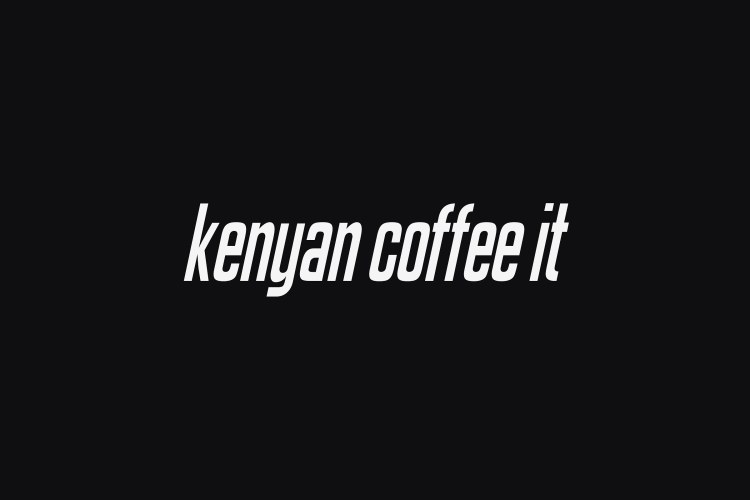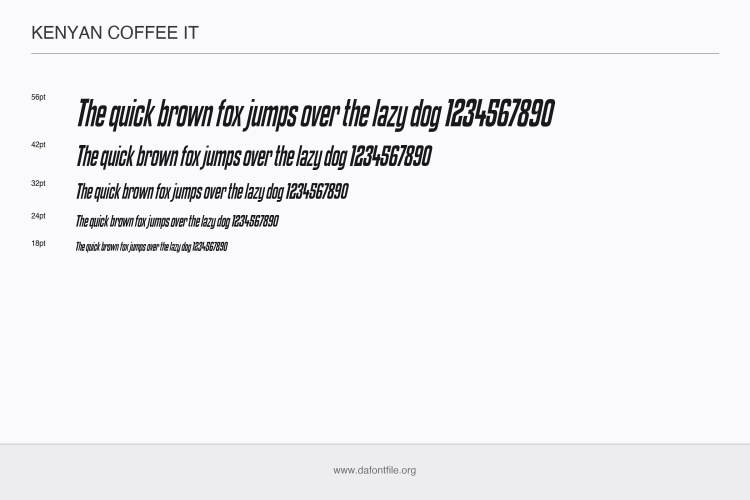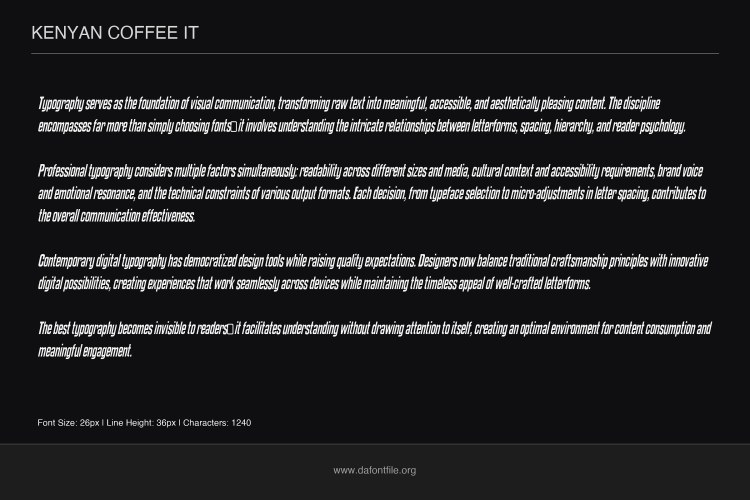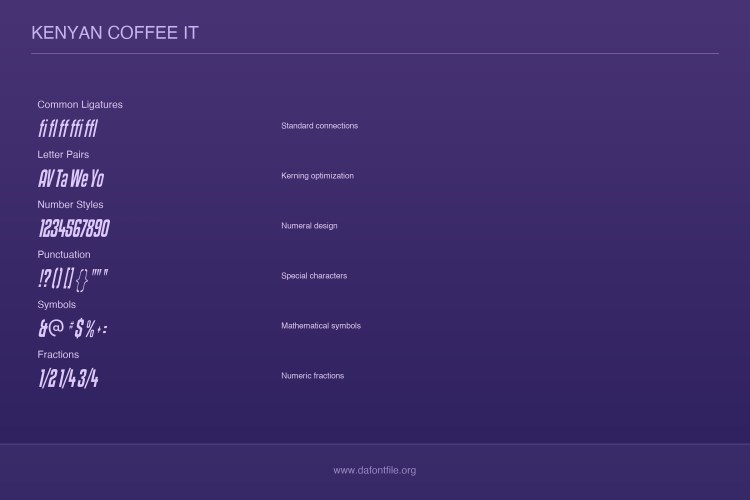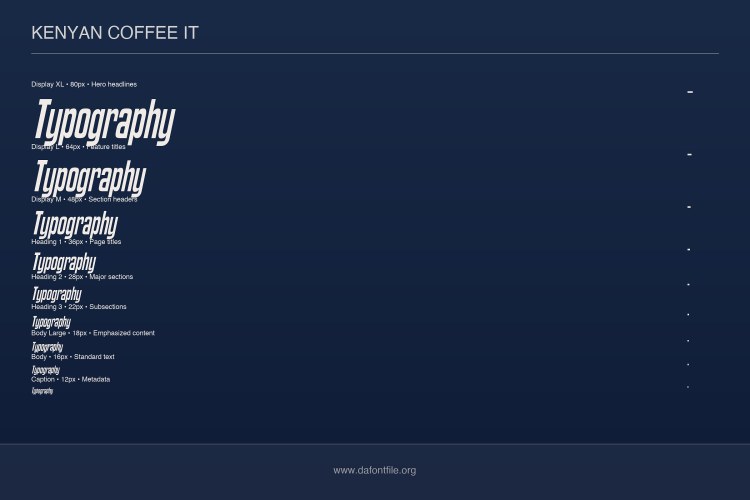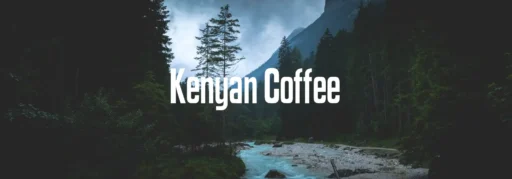
Kenyan Coffee Font Family
Kenyan Coffee delivers a bold, condensed sans serif style with a modern edge. Its tall letterforms and clean structure grab attention in headlines, logos, posters, and packaging. The font brings strong impact while keeping every word clear and readable.
Where Kenyan Coffee Font Family works best
Kenyan Coffee Font Family stays legible at small sizes, which makes it a strong choice for navigation, buttons and dashboards in web design and app interfaces.
Clean sans serifs like Kenyan Coffee Font Family are the default language of SaaS, fintech and product branding.
What is Kenyan Coffee Font Family good for?
Kenyan Coffee Font Family is a Sans Serif Fonts typeface tagged Bold, Clean, Condensed, Modern. It works well for headlines, logos, posters, social media graphics and branding projects that need a distinctive sans serif fonts look.